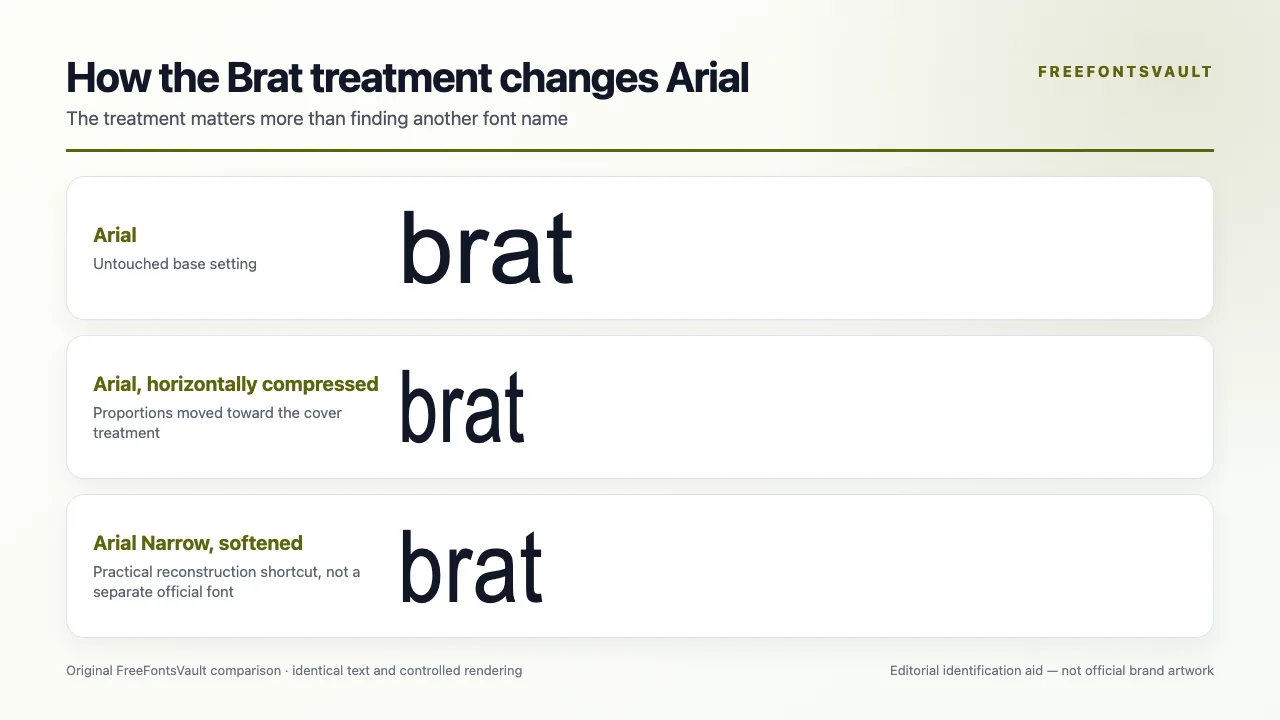
Quick answer: Charli XCX’s Brat cover is based on Arial lettering that was deliberately stretched, softly blurred, set in lowercase, and placed off-centre. Arial Narrow is the most practical starting point in this generator; it is a close reconstruction aid, not a separate official “Brat” typeface.
The most important part of the look is the treatment, not simply the font name. The compressed proportions, low-resolution softness, black text, acidic green field, and awkward placement work together. A clean Arial setting without those decisions will not look like the album artwork.
Special Offer’s own project archive credits the studio’s album and campaign design, with Charli xcx and Imogene Strauss as collaborators. In Brent David Freaney’s New York Times interview, as reported by Us Weekly, he identified Arial as the base and described stretching it. This supports an Arial-based design; it does not establish that an untouched Arial Narrow file was the final artwork.
Arial Narrow is useful because its naturally compressed construction gets close to the cover quickly. The final artwork is still customized: proportions, raster softness, spacing, scale, and placement differ from a normal Arial Narrow setting. Treat the generator as a way to build a similar typographic composition, not as a source for the official album master.
Freaney’s reported account links the lettering’s character to stretching, awkward placement, and small-scale raster artwork enlarged for the cover. Those are production treatments, not evidence of a separate retail typeface named “Brat.” Arial Narrow remains a reconstruction shortcut here, not a separately confirmed production credit.
| State | What changes | Evidence value |
|---|---|---|
| Arial, untouched | Normal width and clean rendering | Reported base family |
| Arial, compressed | Horizontal proportions become more awkward | Reconstruction of the documented treatment |
| Arial Narrow, softened | Compressed starting point plus raster softness | Practical shortcut, not a production credit |
The closest ready-to-type base in this preview. Use lowercase text and keep the wording short. Stretching or compressing a font can distort letterforms, but that deliberately awkward distortion is part of this particular art direction.
A useful alternative when your design software lets you adjust horizontal scale. Start with Arial, reduce the width, soften the raster edges slightly, and compare the result against the reference rather than relying on the font name alone.
The designers changed the proportions, scale, placement, and raster softness. Those production choices are responsible for much of the recognizable look.